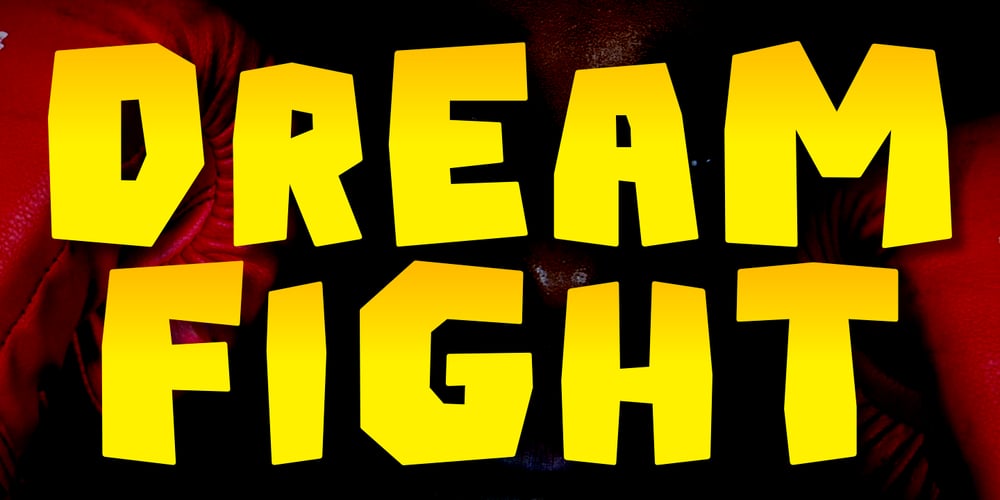
Dream Fight Font Family was designed by Aldy Sidik and published by Epiclinez. Dream Fight contains 1 styles and family package options. Unleash the magic of imagination with Dream Fight, the playful display font that brings your words to life! This cartoonish typeface is perfect for making bold statements in headlines, catchy game titles, and cheeky logotypes. Whether you’re designing product packaging or crafting fun promotional materials, Dream Fight adds a whimsical flair that captivates audiences and sparks joy.Dream Fight features :- Standard Latin- Numbers, symbols, and punctuations- Multilingual Support.- Fully accessible without additional design software- Simple Installations- Works on PC & MacThank You